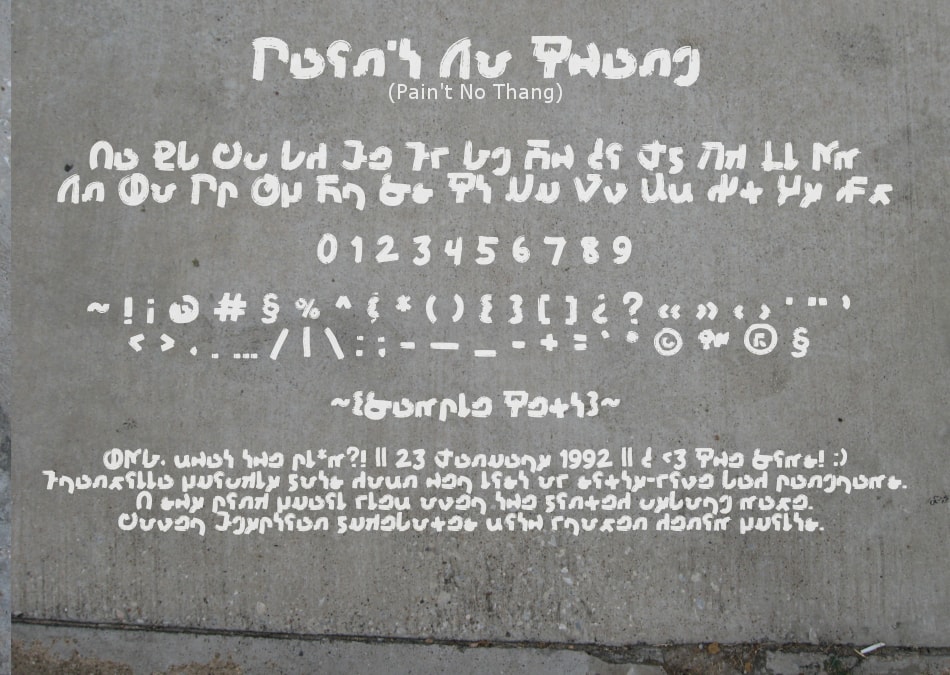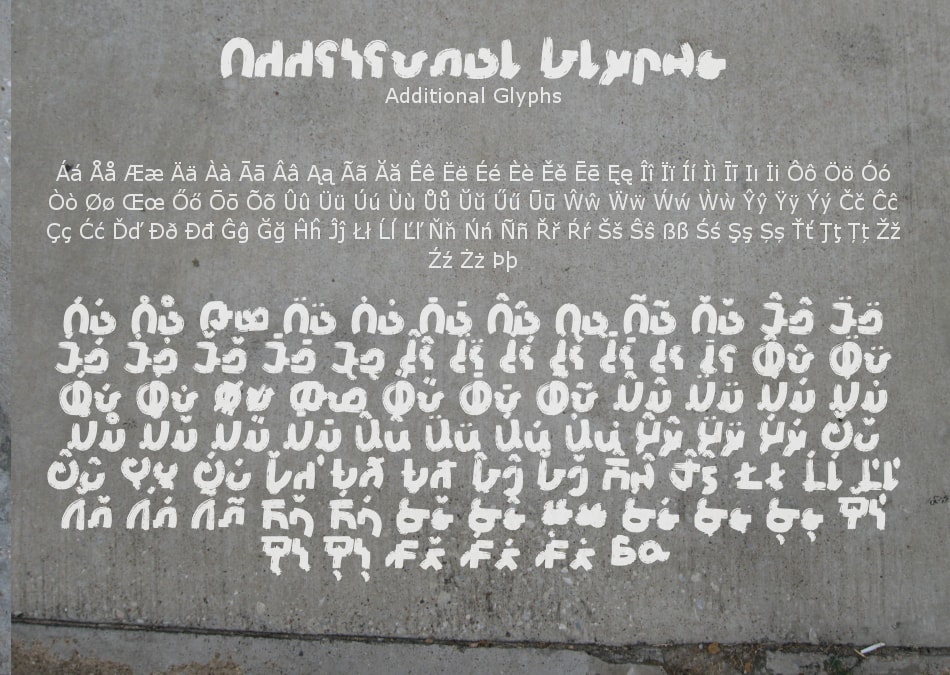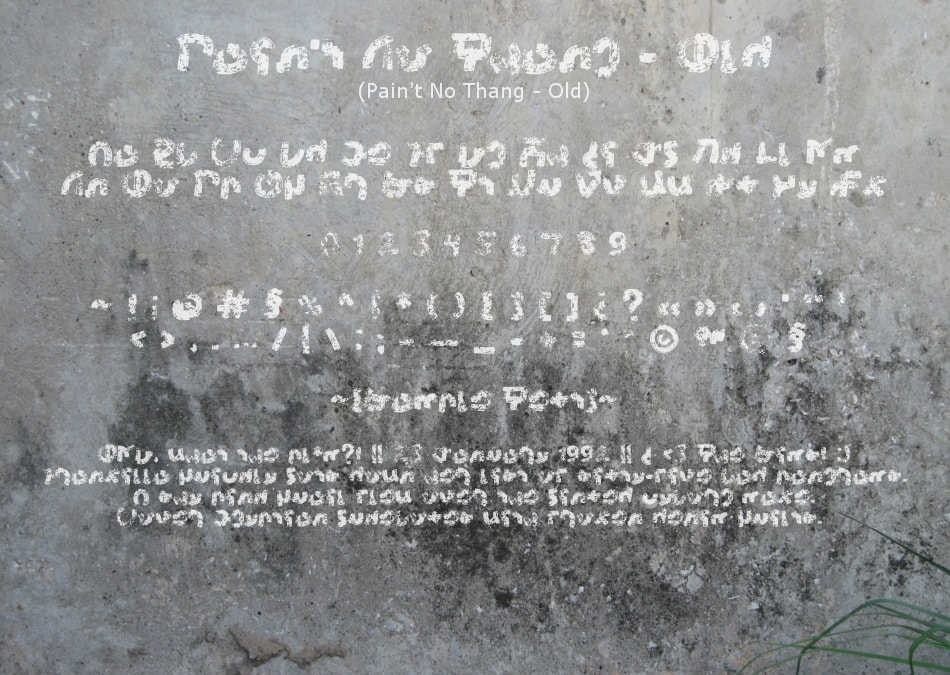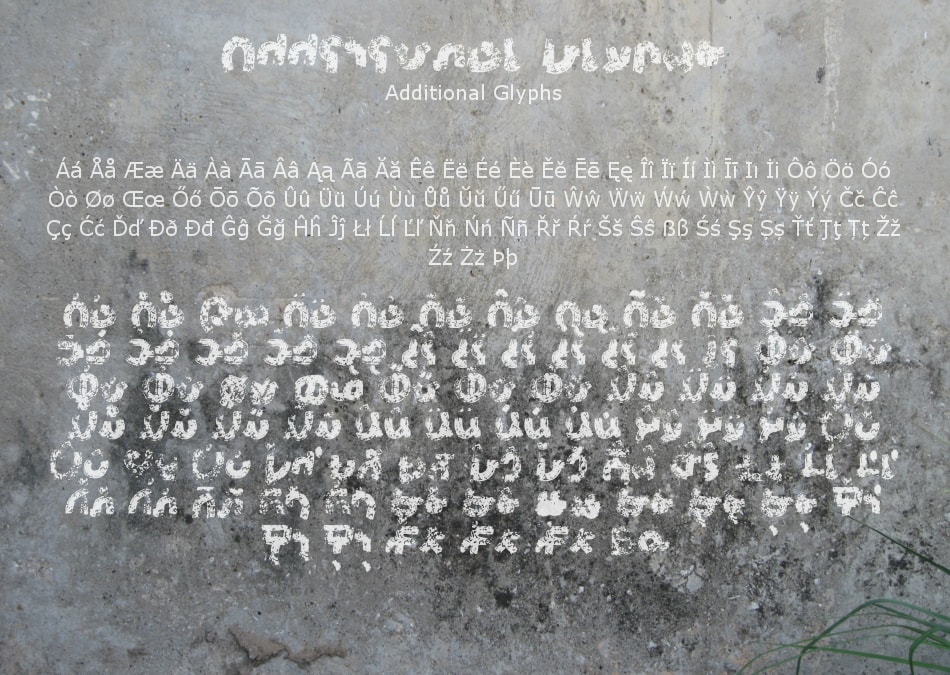
Wide Brush Simlish Fonts
The first one, Pain't No Thang, is supposed to be freshly-painted lettering for new paintwork.
Pain't No Thang - Old, as the name suggests, is a very worn version of the first-- basically a bag of old, flaky, paint chips.
Both have the additional glyphs shown along with a few extras.
The ~{Sample Text}~ at the bottom of the preview pics reads:
OMG, what the pl*m?! || 23 January 1992 || I <3 The Sims!
Franzilla quickly jots down her list of sixty-five bad pangrams.
A shy pink quail flew over the jinxed cyborg maze.
Cover Egyptian jukeboxes with frozen denim quilts.
These are but plain, simple fonts.